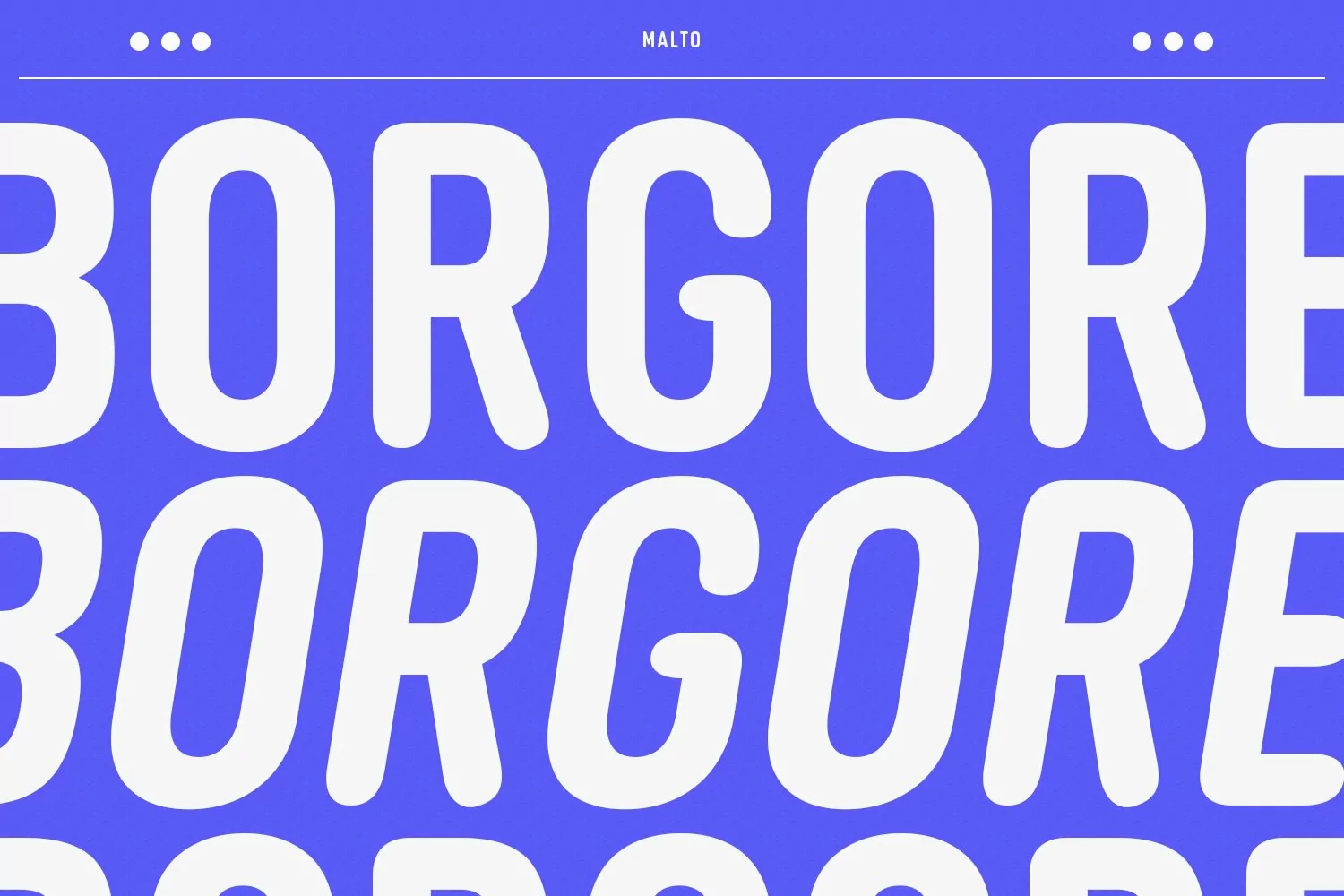
Malto is a condensed sans serif font. With semi bold soft edge stroke, fun character with a bit of ligatures and alternates. To give you an extra creative work. Malto font support multilingual more than 100+ language. This font is good for logo design, Social media, Movie Titles, Books Titles, a short text even a long text letter and good for your secondary text font with sans or serif. Make a stunning work with Malto font.